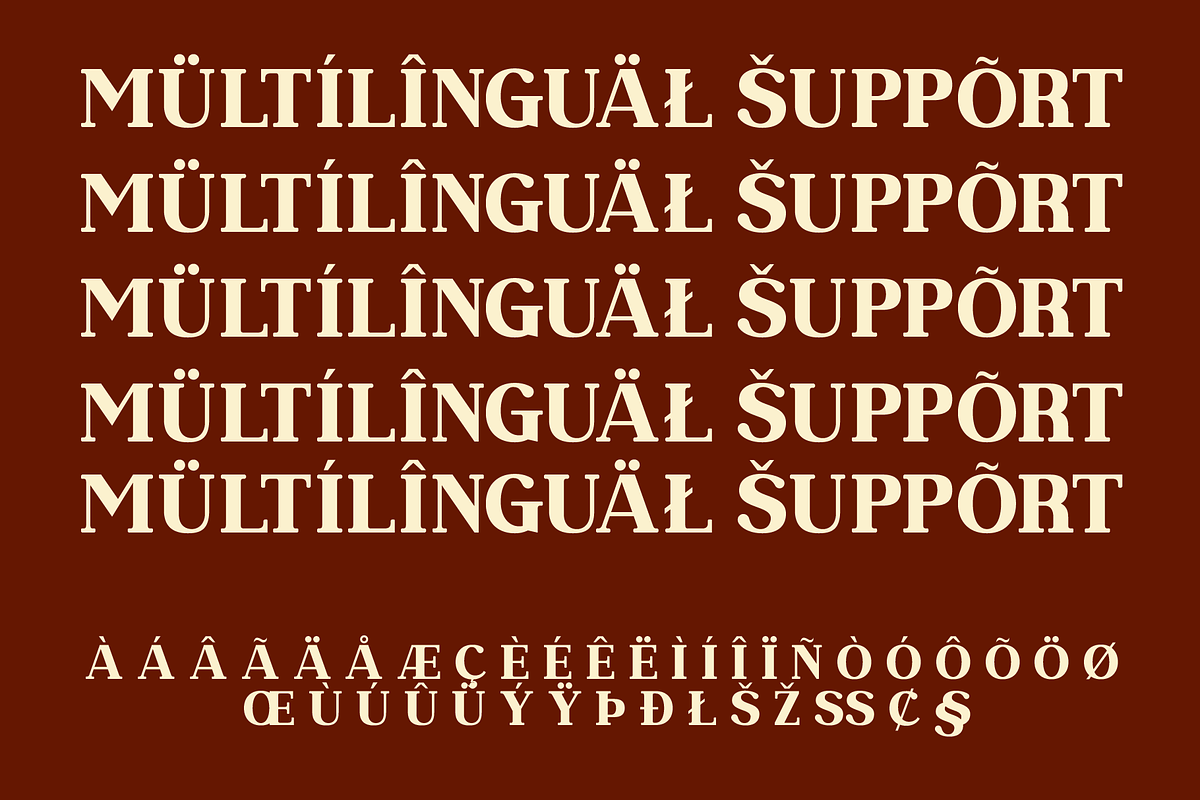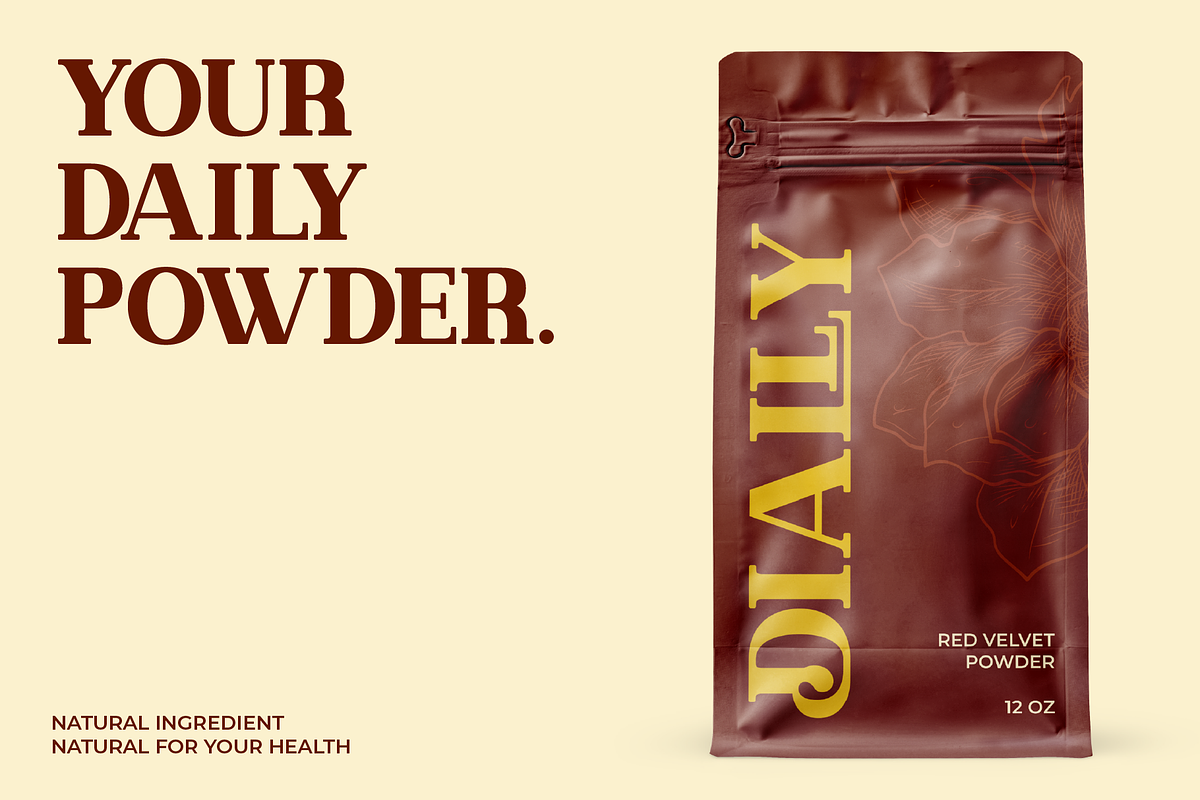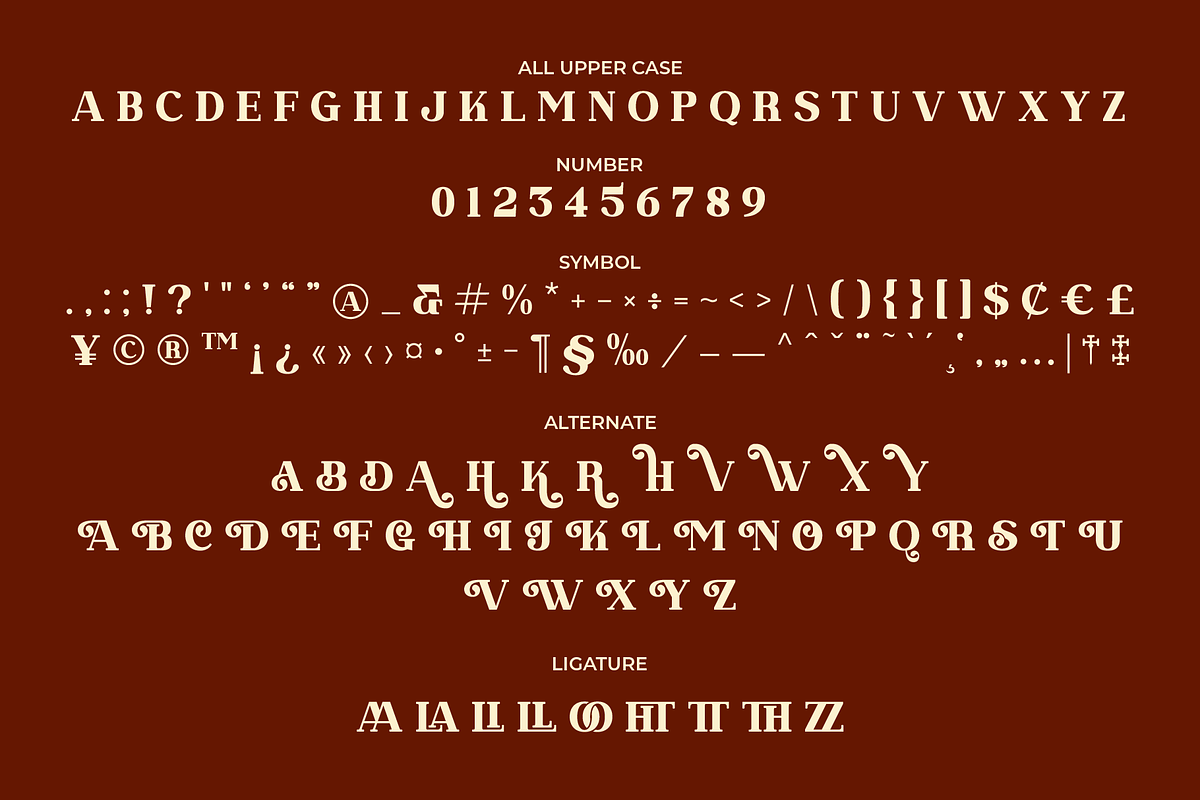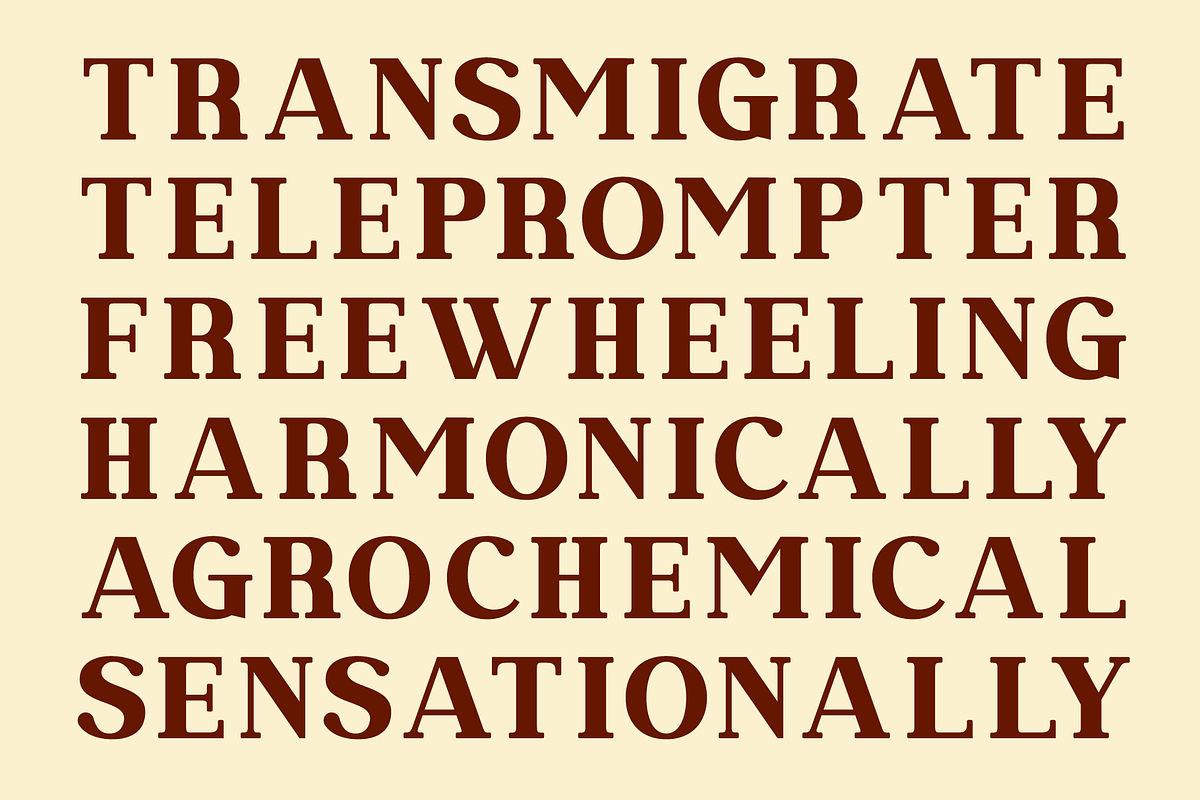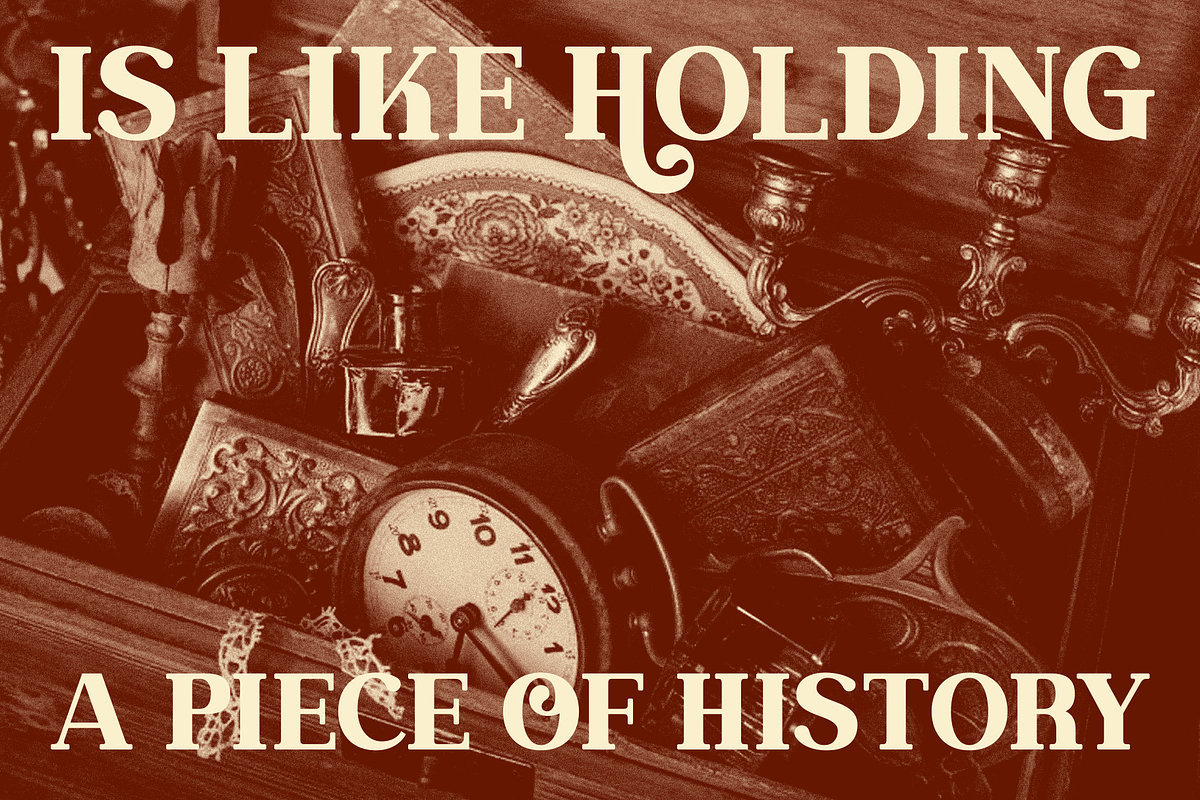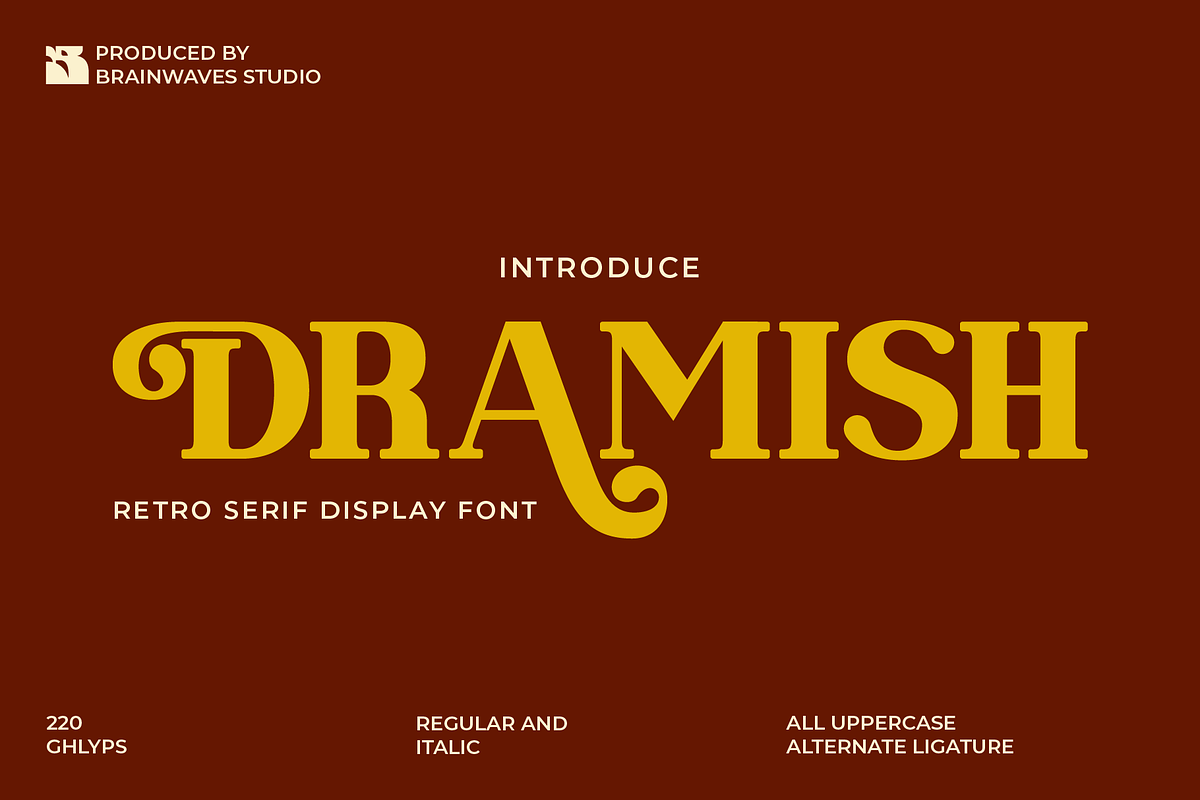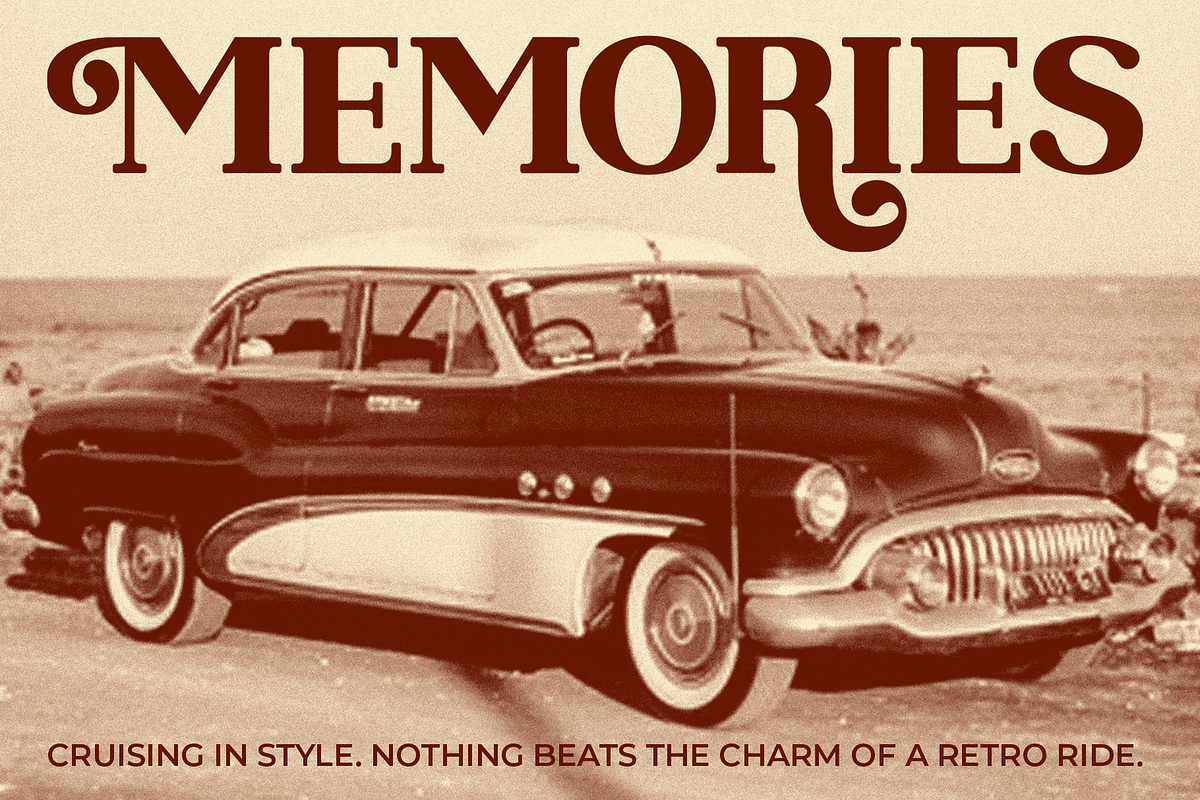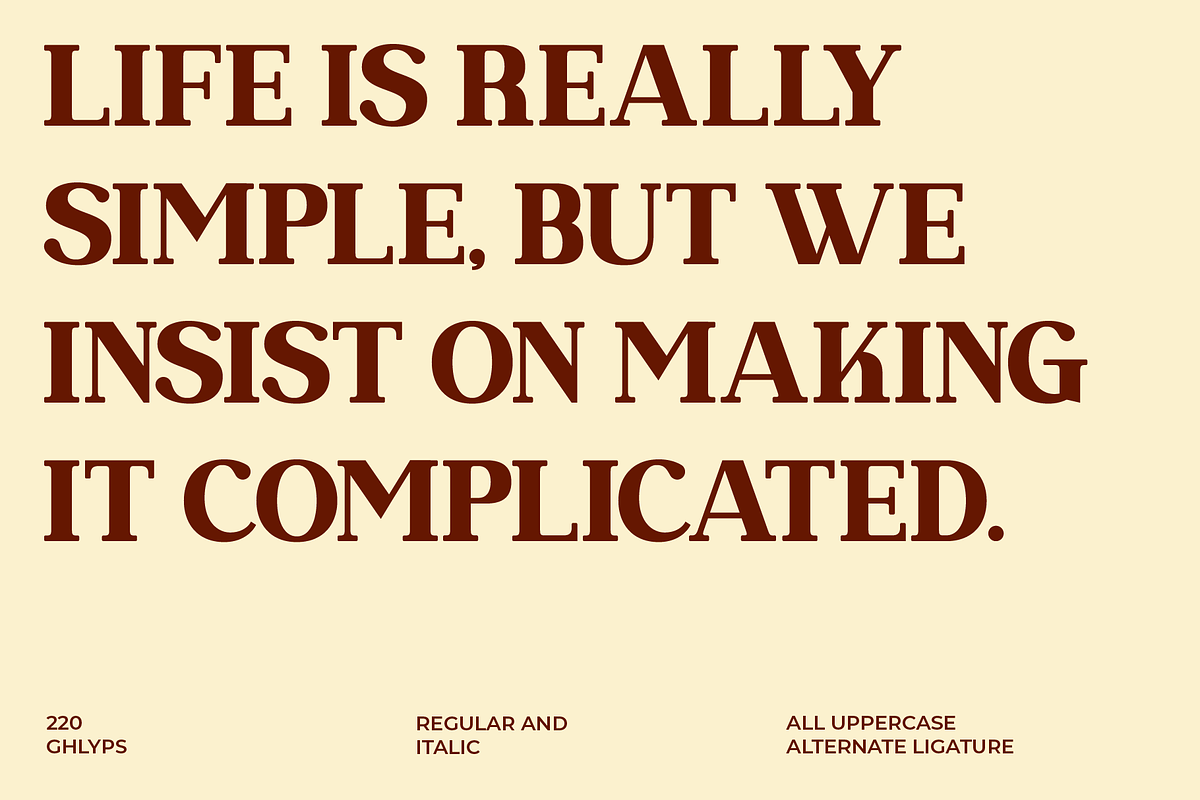
Dramish - Serif Retro Font
Dramish is a retro serif display font that exudes classic elegance with uniquely artistic details. Designed with a vintage-inspired yet bold and modern look, each letter carries a distinctive personality, making it perfect for standout typography.
Featuring all uppercase characters, Dramish includes ligatures and alternates, allowing for dynamic and stylish text compositions. The carefully crafted curves and balanced stroke contrast create a refined aesthetic that enhances branding, editorial designs, and creative projects with a timeless appeal.